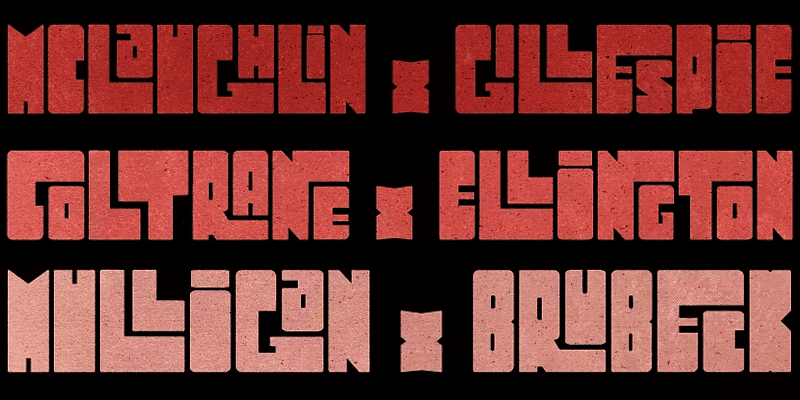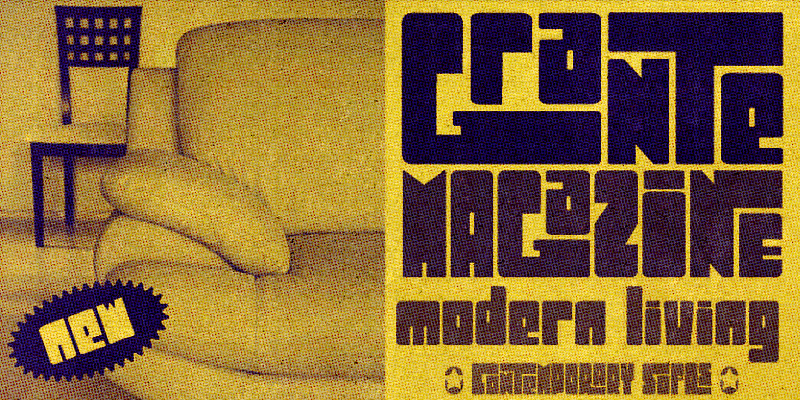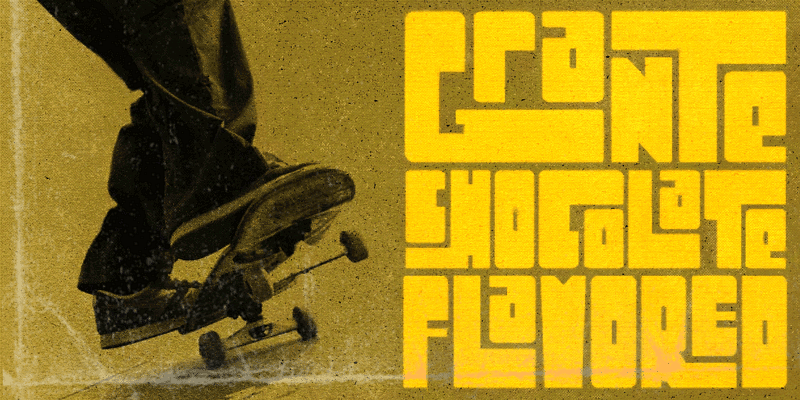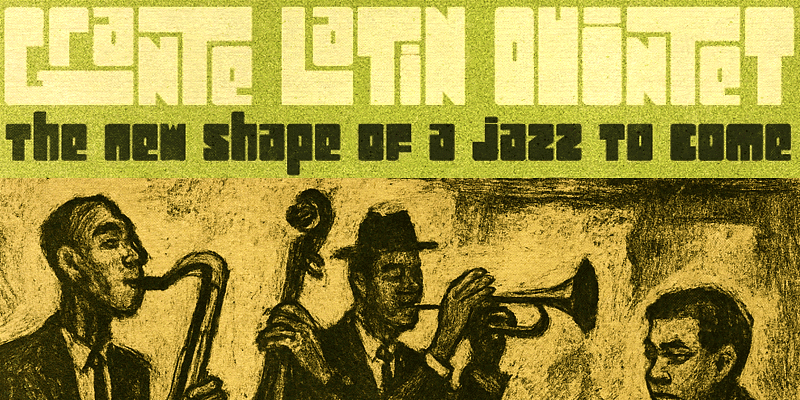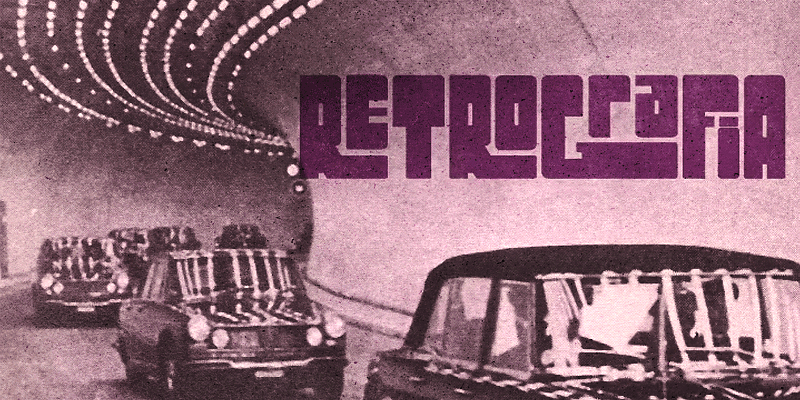
Grante is a uniquely dramatic typeface that breaks the mold of what a sans might be. Rectangular with selectively round corners, it is unapologetically bold. But then you turn on the OpenType features, and suddenly, you have impossibly cool word shapes that would catch the eye of anyone passing by. It is worth mentioning that even without OpenType tricks it is possible to use these ligatures, setting them ‘by hand’. Dingbats included!